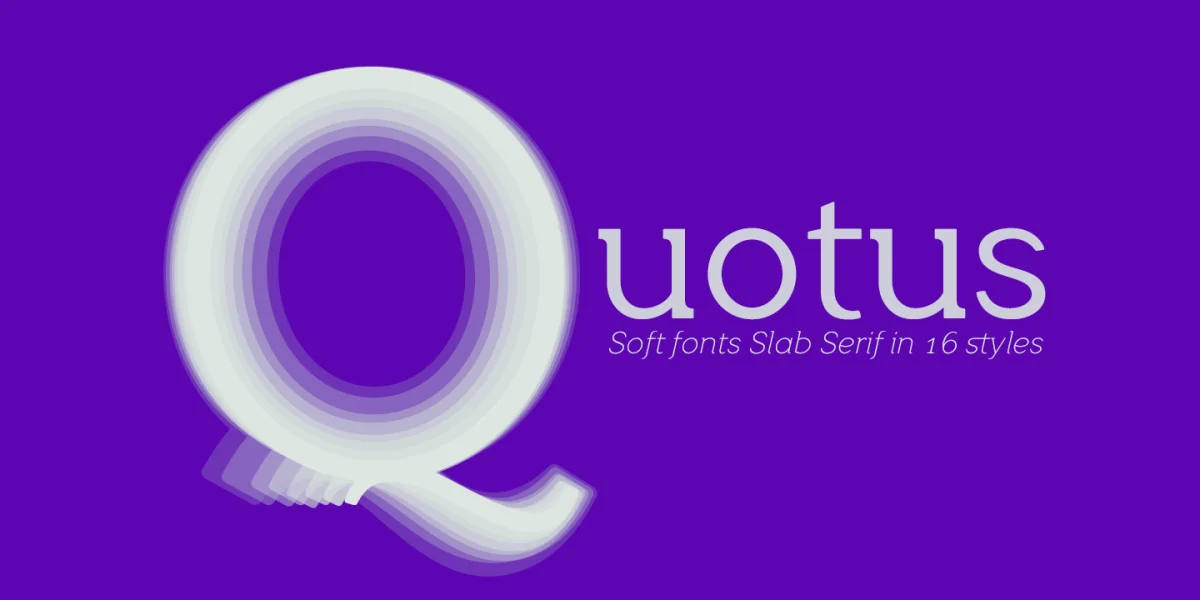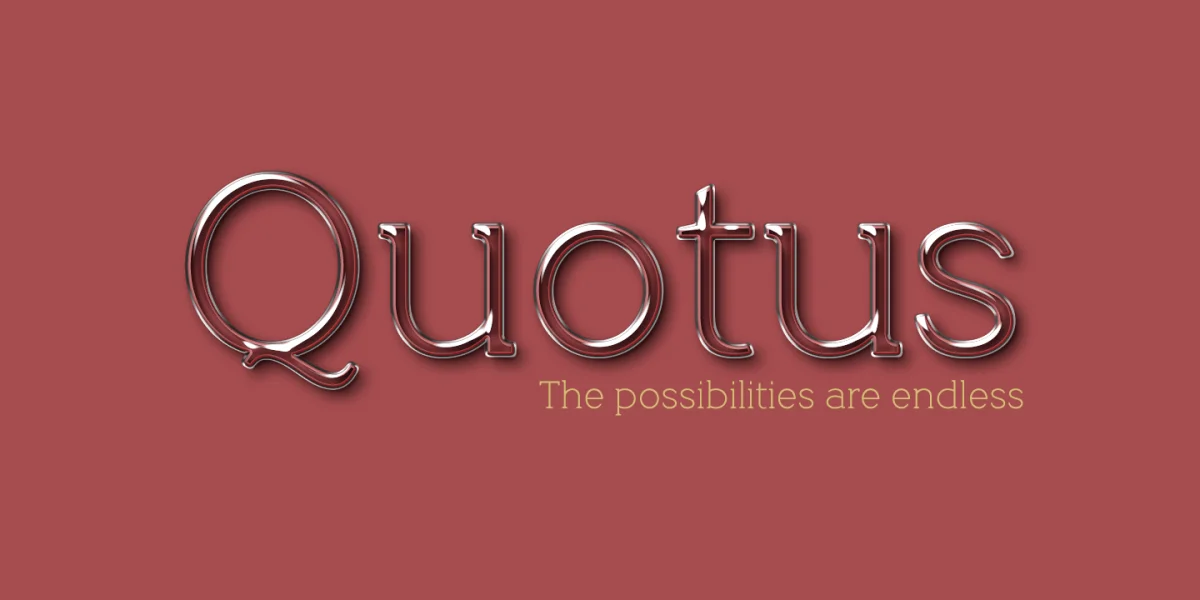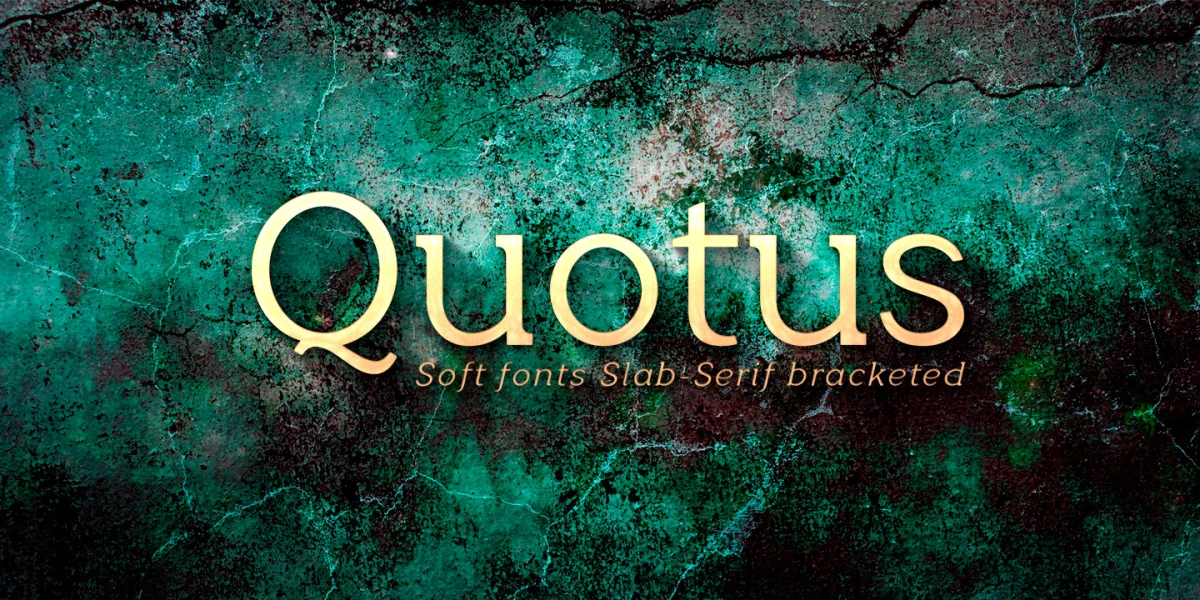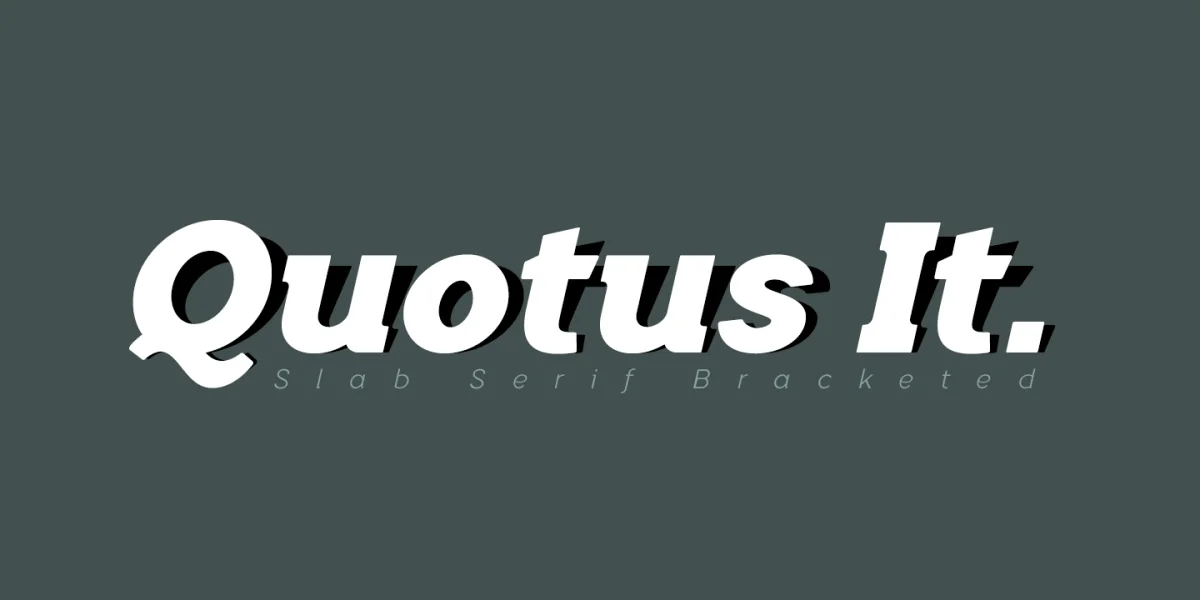
Quotus is a new typographic family with slab serifs bracketed. There are 16 styles (Thin, Light, Book, Regular, Medium, Bold, ExtraBold, Black + Italics)
The metric and configuration of the kerning has been exhaustive for maximum balance and readability.
Italic versions have their own stylized lowercase letters with an inclination of 13 degrees.
All fonts have advanced Open Type functions and the Bitcoin symbol (b#)